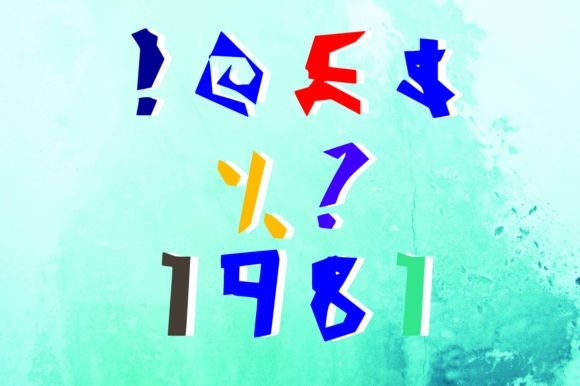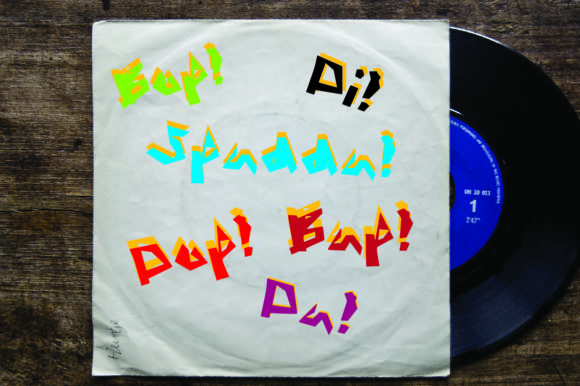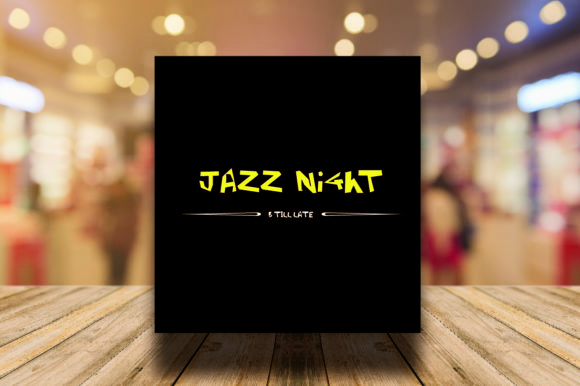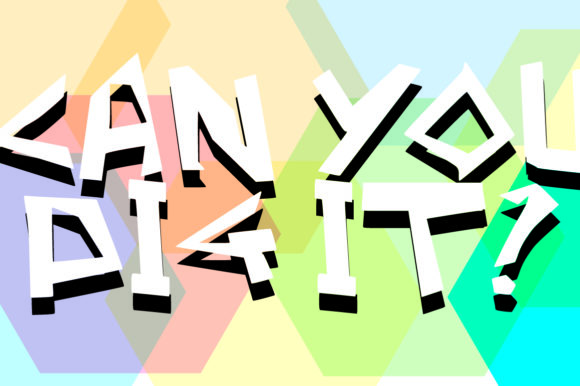
Get Ready to Groove with the Bang Bang Bang Font!
Have you ever been in a creative flow, where ideas are pouring in and your design project is taking shape, only to feel like it’s missing that special something? You know, that je ne sais quoi that sets it apart from the rest? That’s where the Bang Bang Bang Font comes in – a funky, kooky jazz-inspired font that’s guaranteed to turn your design project into a standout!
This versatile font is designed to add a touch of personality to any project, from music festivals to boutique hotels, and everything in between. With its unique blend of modern and vintage flair, the Bang Bang Bang Font is a valuable asset for designers looking to create memorable and engaging designs. Whether you’re a seasoned pro or just starting out, this font is sure to be a game-changer for your next design project.
Bang Bang Bang Font Key Features
- Unique Characteristics: This font features bold, energetic, and playful letterforms, making it perfect for creating eye-catching headlines and titles.
Bang Bang Bang Font Review
As a designer, I’ve had the chance to play around with the Bang Bang Bang font, and here’s my honest take.
- Unique style**: Bang Bang Bang has a distinct, playful feel that sets it apart from other fonts. Its quirky letterforms and creative use of whitespace make it perfect for designs that need a bit of whimsy.
- High-quality rendering**: The font renders well on a variety of devices and screen sizes, making it a great choice for web and digital projects.
- Good legibility**: Despite its playful nature, Bang Bang Bang is still easy to read, even at smaller font sizes.
- Limited font weight options**: While the font comes in a few different weights, it’s not as comprehensive as some other fonts on the market.
- No italics or bold-italic options**: If you need to emphasize text in a particular way, you may be out of luck with Bang Bang Bang.
Overall impression
Overall, I think Bang Bang Bang is a solid choice for designers looking for a fun, unique font to add some personality to their projects. While it may not be the most versatile font out there, its strengths make it a great option for the right projects.
Bang Bang Bang Font: A Practical Application Guide
To get the most out of the Bang Bang Bang font, use it sparingly and in combination with other fonts. Experiment with different font sizes, colors, and styles to create a unique visual effect. Avoid overusing the font, as it may become overwhelming.
The Bang Bang Bang font is ideal for creative projects, such as:
- Designing social media graphics and ads
- Creating eye-catching titles and headings
- Developing branding materials and logos
- Designing digital products and interfaces
Alternatives to Bang Bang Bang Font for Designers